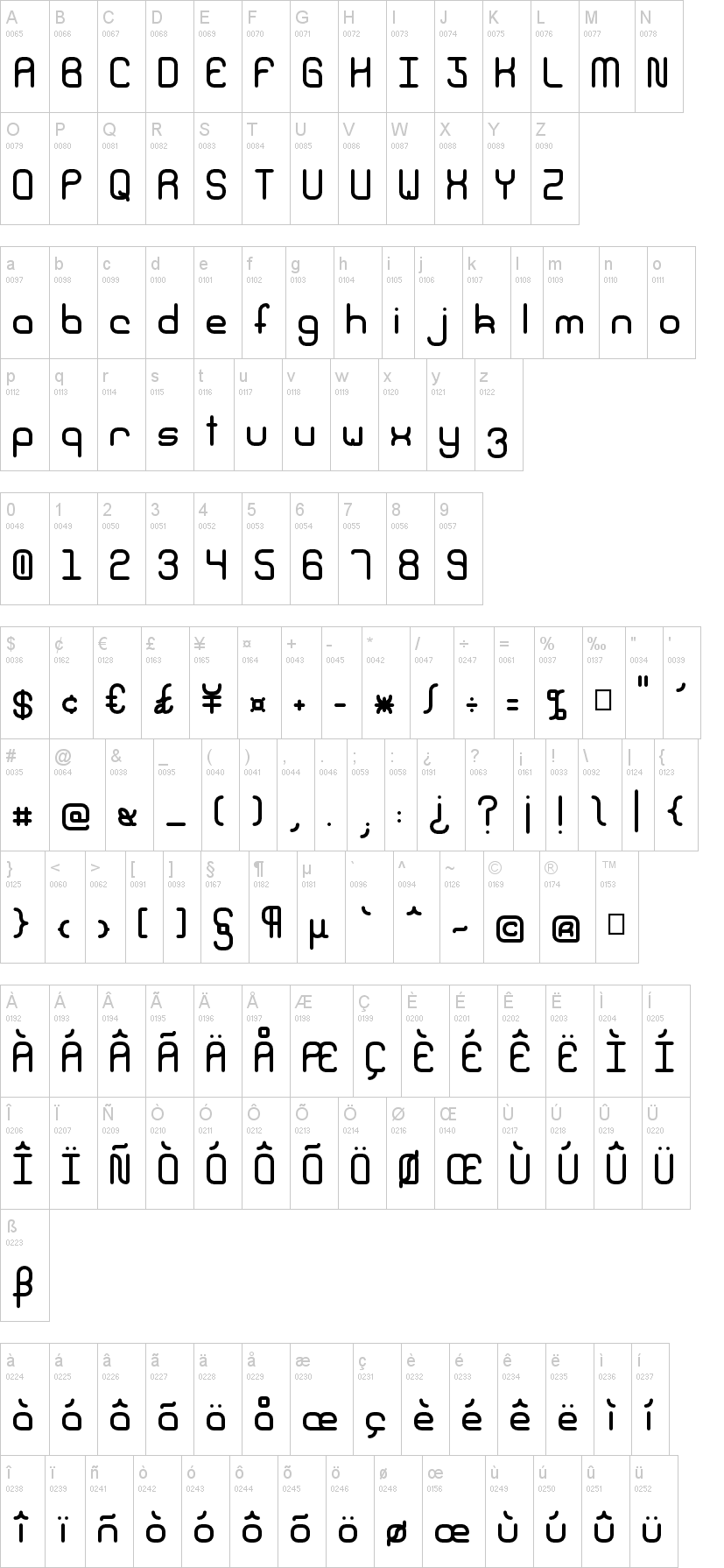
Шрифт Climpse
Climpse is a title & text font aiming to display texts in a light and fluid way on printed media. It may be used on digital design but might be hard to use at small size.